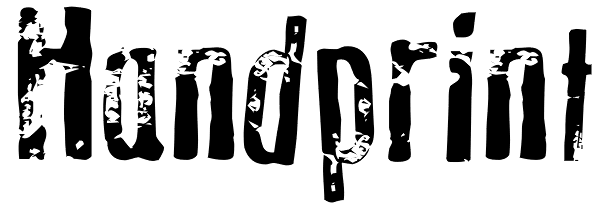
Handprint
Handprint was inspired by a set of old metal alphabet stamps, with a few modifications. Stamped in a sketchy manner, these metal stamps made the basis for a very interesting alphabet and font.